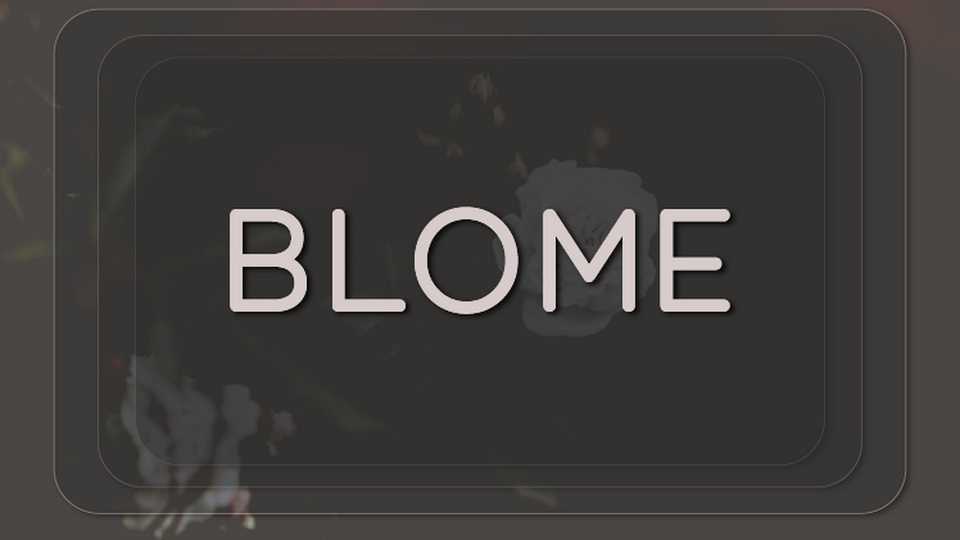
Download Blome font, a clean and simple sans serif typeface. With smooth and delicate lines, Blome font works beautifully for logos, branding, and web headings.